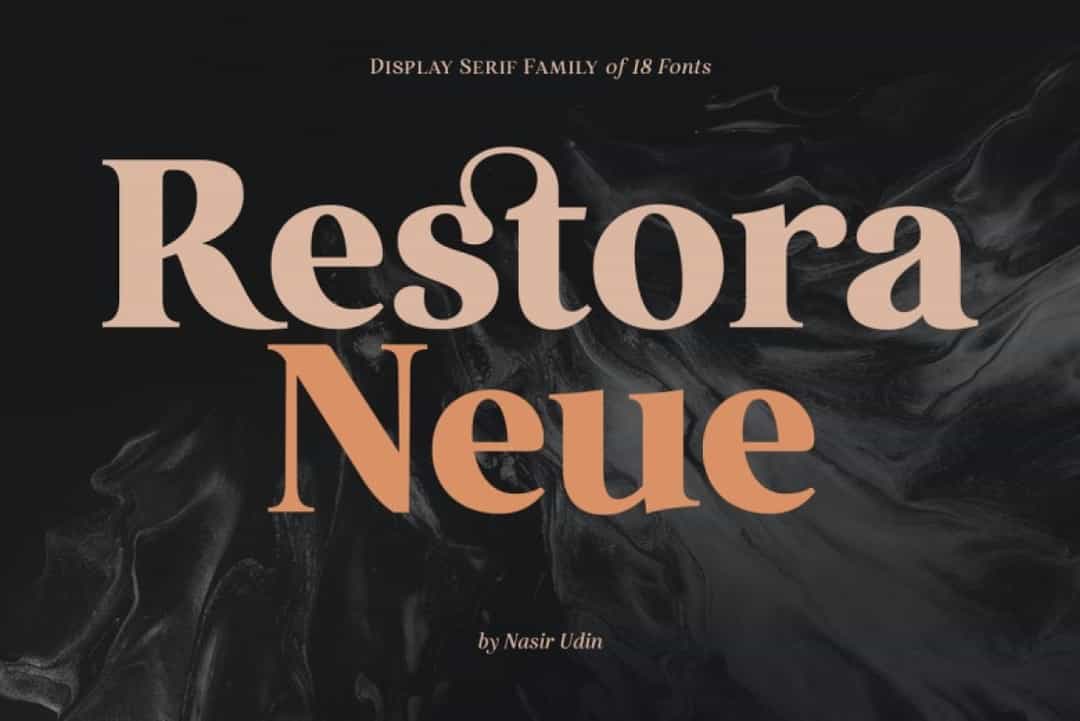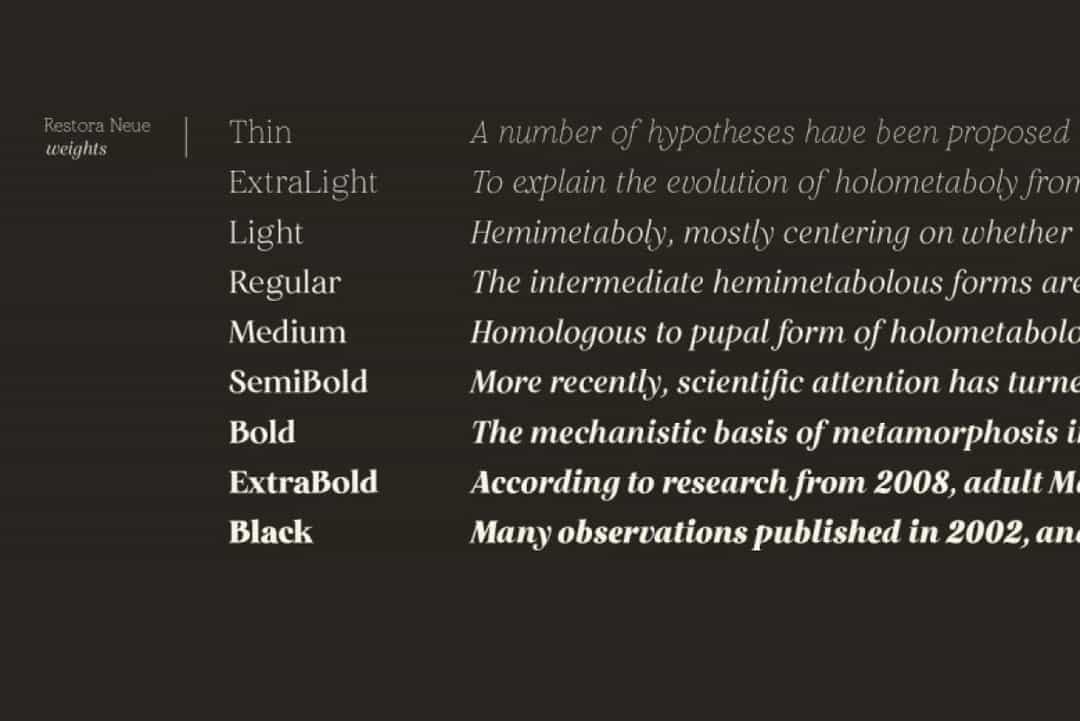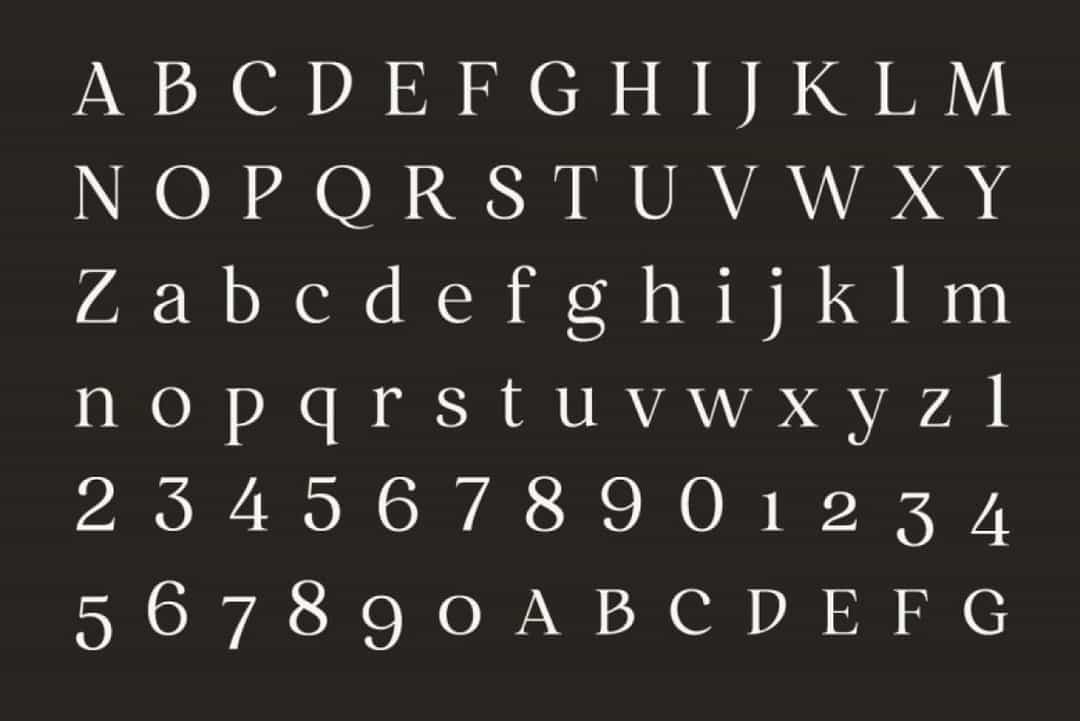
Restora Neue is often considered an improvement on its predecessor, Restora. While Restora was designed as an imperfect font, Restora Neue features more neat lines and increased contrast compared to its predecessor. Inspired by traditional roman serif designs with medieval influences and featuring its signature slim and sharp serifs for maximum versatility across a variety of projects from traditional to contemporary environments, Restora Neue’s use as part of any design can span from traditional to contemporary applications.